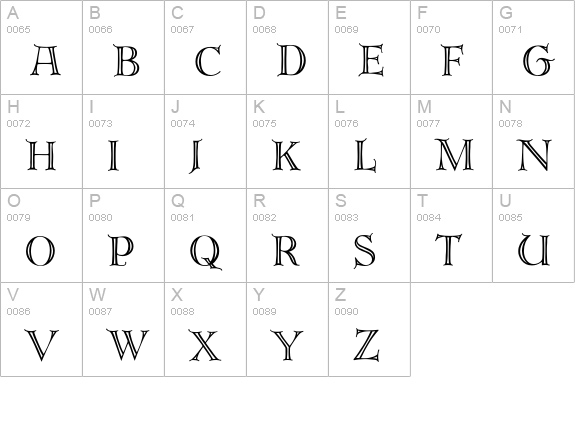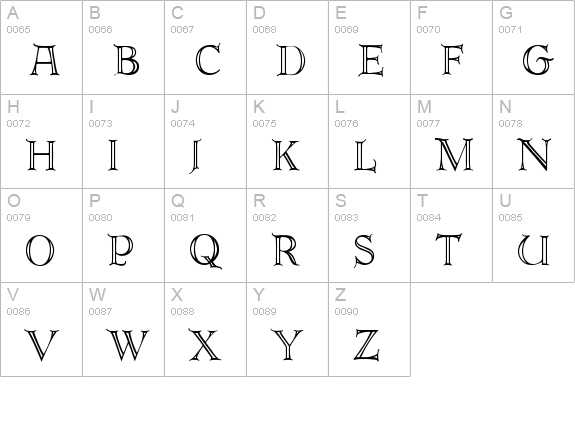
Akropolis Font Details
The Akropolis font is a timeless and elegant typeface that exudes sophistication and class. Its clean lines and balanced proportions make it a versatile choice for a wide range of design projects, from branding and packaging to invitations and signage. The Akropolis font is known for its classic yet modern appeal, making it a popular choice among designers and creatives. The best part? The Akropolis font is completely free to download at FontsMarket.com, allowing you to easily incorporate this stylish typeface into your next project without breaking the bank. Whether you're looking to add a touch of sophistication to your designs or simply want to elevate your typography game, the Akropolis font is sure to impress. Download it today and see for yourself the impact this beautiful font can have on your work.